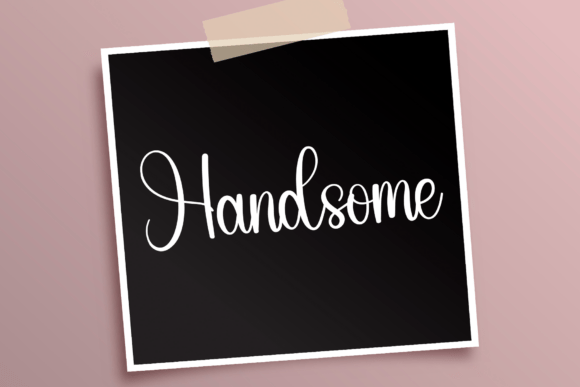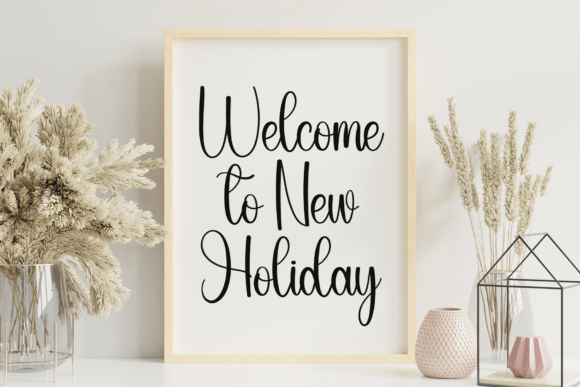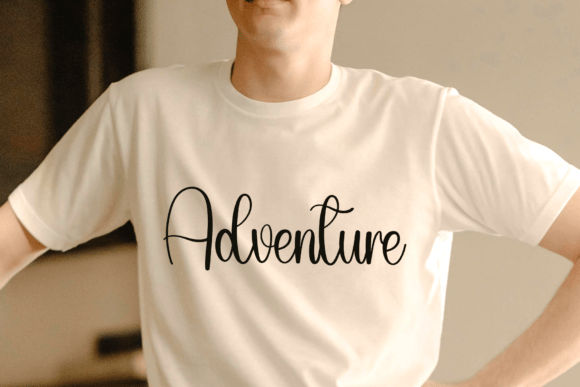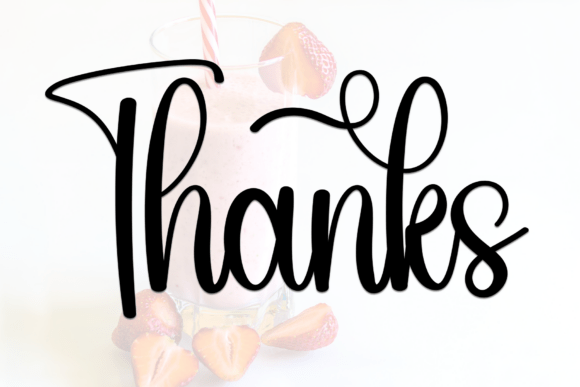
Introducing Drink: The Elegant Script Font for Modern Designs
In the world of typography, a well-crafted font can elevate a design from ordinary to extraordinary. For designers and crafters seeking a stylish and sophisticated touch, Drink font is an exceptional choice. This beautiful script font embodies elegance and modern charm, making it perfect for a wide range of creative projects.
The Beauty of Drink Font
Drink font boasts fluid strokes, graceful curves, and carefully balanced letterforms that capture the essence of hand-drawn calligraphy with a contemporary edge. Its unique design elements work in harmony to create a visually stunning font that adds a touch of refinement to any design. Whether you’re working on a logo, invitation, packaging, or social media graphics, Drink font is sure to impress.
Key Features of Drink Font
- Fluid Strokes: Drink font features smooth, flowing strokes that give it a natural and elegant feel.
- Graceful Curves: The font’s curves are meticulously crafted to create a sense of fluidity and movement.
- Carefully Balanced Letterforms: Each letterform is carefully designed to ensure balance and harmony, making the font a joy to read and use.
- Contemporary Edge: Drink font skillfully blends traditional calligraphy with modern design elements, giving it a fresh and contemporary look.
Uses for Drink Font
- Visual Appeal: Drink font is designed to impress, with its elegant strokes, curves, and letterforms creating a visually stunning effect.
- Sophistication: Drink font adds a touch of sophistication and personality to any design, making it perfect for brands and designers seeking to elevate their creative projects.
In conclusion, Drink font is a stylish script font that offers a perfect blend of elegance and modern charm. With its fluid strokes, graceful curves, and carefully balanced letterforms, it’s an excellent choice for designers and crafters seeking to add a touch of sophistication and personality to their creative projects. Whether you’re working on a logo, invitation, packaging, or social media graphics, Drink font is sure to impress.